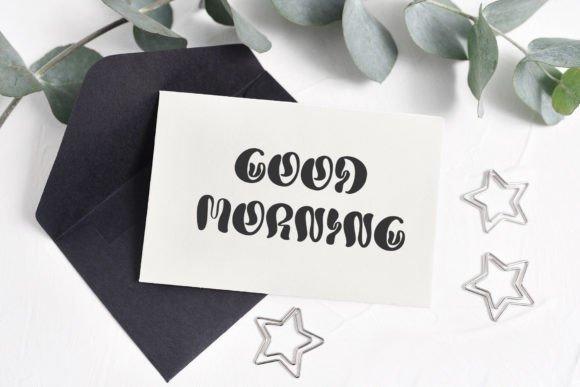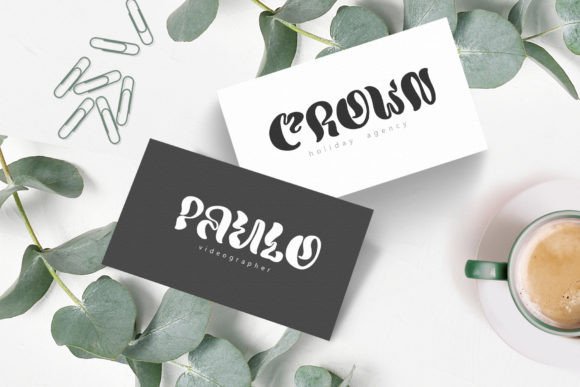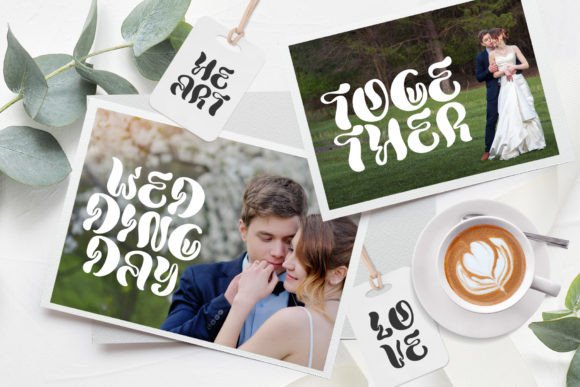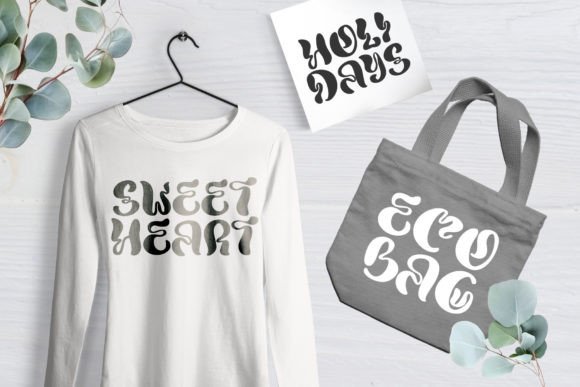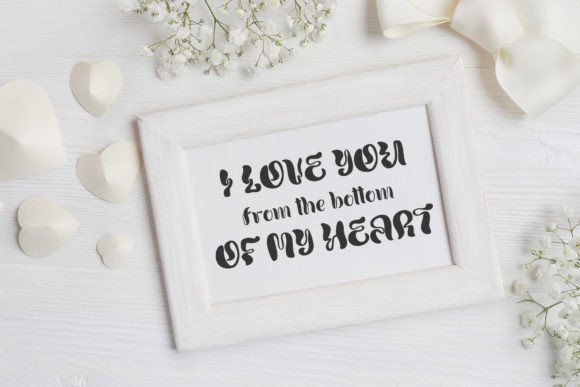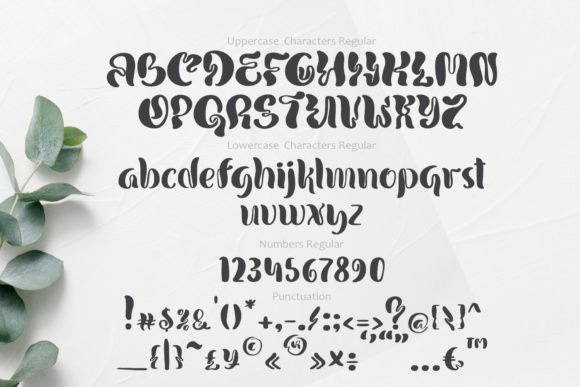
Introduction to Round Font
Hand-drawn font Round is a playful yet elegant sans-serif typeface.
It helps to find inner peace in the soul and consciousness Ideal for creativity and positivity.
Key Features of Round Font
Why Choose Round Font?